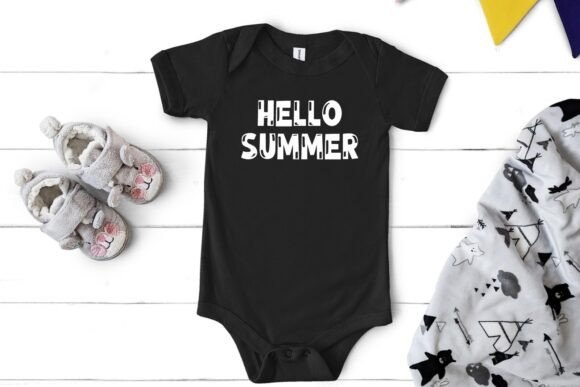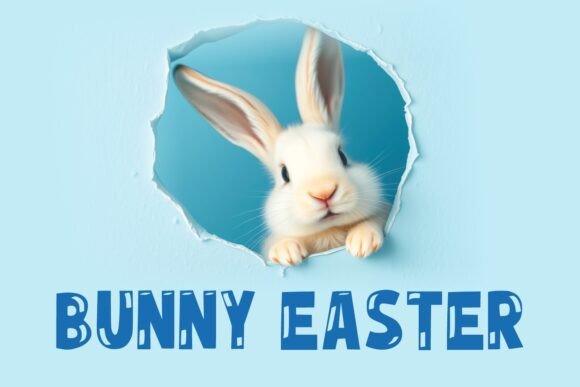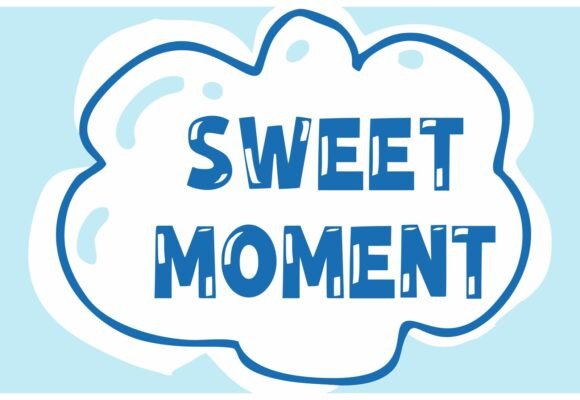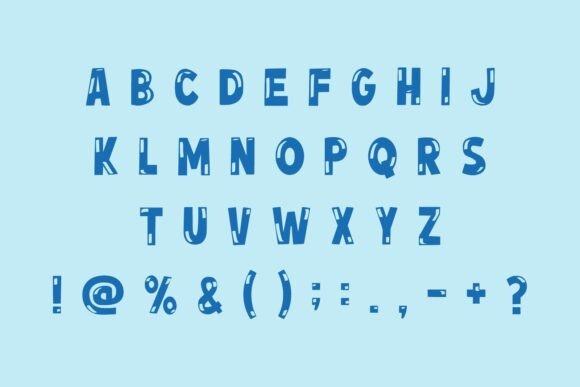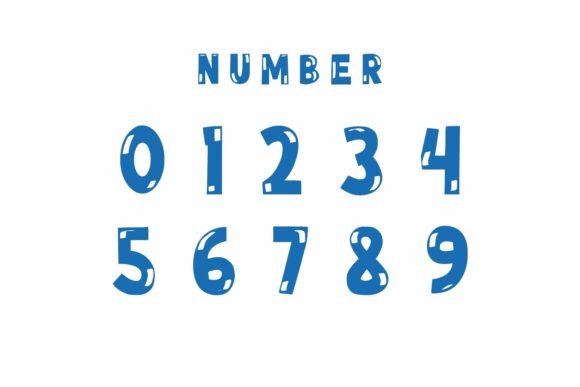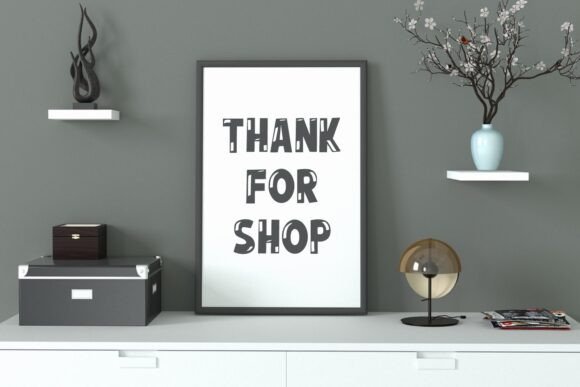
Introducing Comic Colorful Font: Adding Whimsy and Fun to Designs
Are you looking for a font that can add a playful touch to your designs? Look no further than Comic Colorful Font! This authentically enchanting display font is perfect for designers and crafters who want to infuse joy and fun into their work. In this article, we’ll explore the features and benefits of Comic Colorful Font and how it can elevate your designs.
What is Comic Colorful Font?
Comic Colorful Font is a unique and vibrant display font that is sure to capture attention. Its whimsical charm makes it perfect for designs that require a playful and fun touch. This font is ideal for use on kids’ t-shirts, posters, flyers, and other materials where a youthful and energetic vibe is desired.
Key Features of Comic Colorful Font
- Authentically Enchanting: Comic Colorful Font has a genuine and magical quality that makes it stand out from other fonts.
- Whimsical Charm: This font exudes a playful and carefree vibe that’s perfect for designs that require a lighthearted touch.
- Versatile: Comic Colorful Font can be used on various materials, including kids’ t-shirts, posters, flyers, and more.
- Easy to Read: Despite its playful nature, Comic Colorful Font is easy to read, making it perfect for headlines and titles.
Uses of Comic Colorful Font
Comic Colorful Font is perfect for a variety of design projects, including:
- Kids’ T-Shirts: Add a playful touch to kids’ apparel with this fun and colorful font.
- Posters and Flyers: Create eye-catching posters and flyers for kids’ events, parties, and activities.
- Stationery and Invitations: Add a whimsical touch to stationery, invitations, and greeting cards.
- Digital Designs: Use Comic Colorful Font in digital designs, such as social media graphics, blog headers, and more.
Benefits of Using Comic Colorful Font
Using Comic Colorful Font in your designs offers several benefits, including:
- Instant Attention: This font grabs attention and draws the viewer in with its playful and colorful nature.
- Emotional Connection: Comic Colorful Font creates an emotional connection with the viewer, evoking feelings of joy and happiness.
- Unique and Memorable: This font is unique and memorable, making it perfect for designs that require a distinctive touch.
Tips for Using Comic Colorful Font
Here are some tips for using Comic Colorful Font effectively in your designs:
- Use it Sparingly: Use Comic Colorful Font sparingly to avoid overwhelming the viewer.
- Pair it with Other Fonts: Pair Comic Colorful Font with other fonts to create visual interest and contrast.
Comic Colorful Font is a unique and enchanting display font that’s perfect for designers and crafters who want to add a playful touch to their designs. With its whimsical charm, versatility, and ease of use, this font is sure to become a favorite in your design arsenal. Whether you’re designing kids’ t-shirts, posters, or digital graphics, Comic Colorful Font is the perfect choice for adding joy and fun to your work.